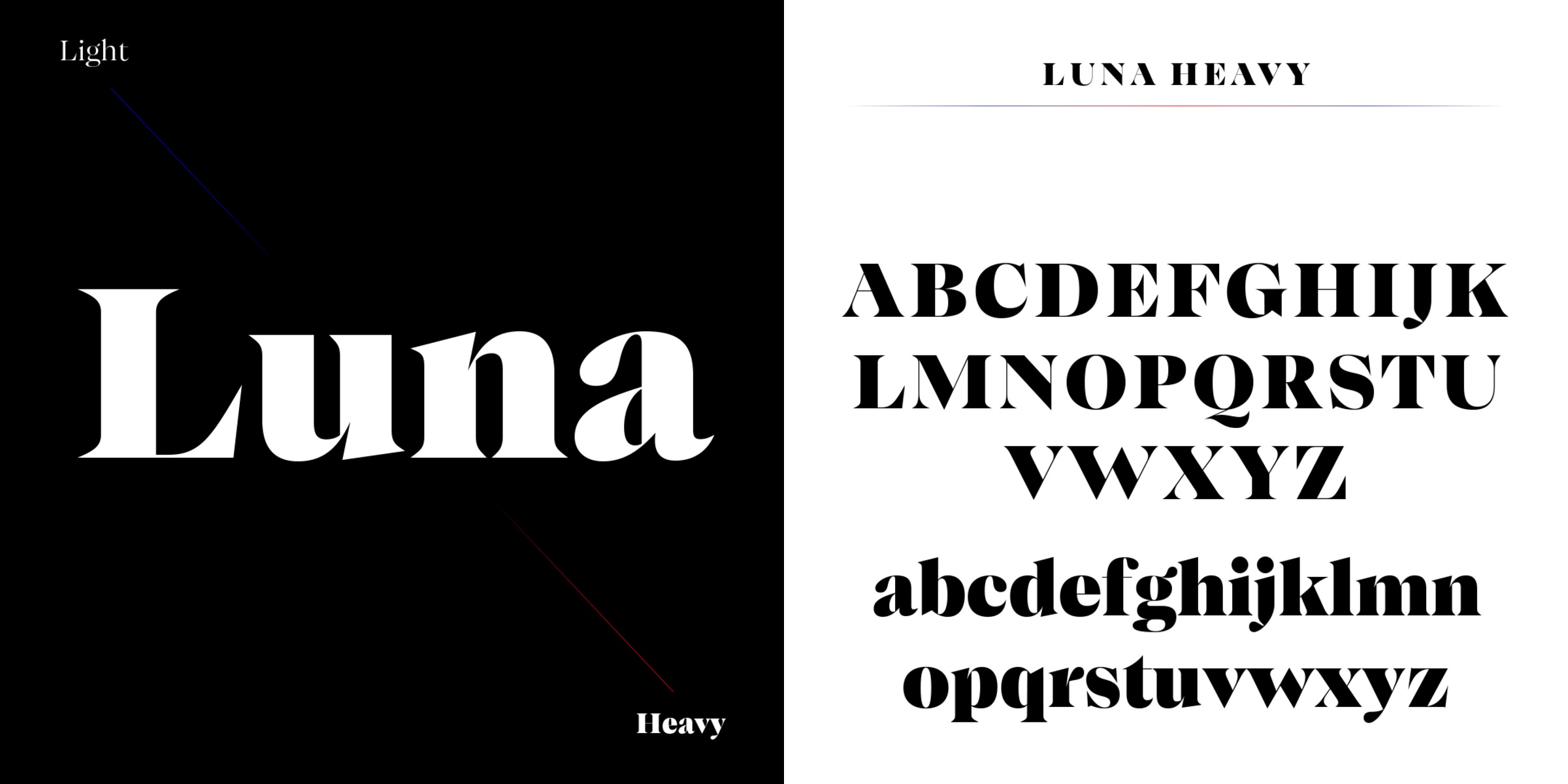
Luna Font
Luna Font is perfect for moonlight-themed restaurants, nighttime photography studios, celestial jewelry brands, lunar meditation apps, dreamy wedding invitations, nocturnal lifestyle magazines, astronomy education materials, moon phase tracking applications, ethereal spa branding, and romantic evening event promotions.
What makes Luna Font so exciting is its remarkable ability to embody the serene beauty and gentle power of moonlight through letterforms that seem to shimmer with silvery radiance and whisper with the quiet wisdom of nighttime contemplation. This luminous typeface captures the essence of lunar tranquility and nocturnal elegance with characters that radiate both peaceful serenity and mystical depth. The font's moonlit design elements perfectly balance celestial inspiration with earthly functionality, creating an indispensable tool that communicates nocturnal beauty, peaceful wisdom, and lunar grace, making it essential for brands and projects celebrating the calming influence of moonlight and the restorative power of nighttime reflection and celestial connection.
Luna Font comes in multiple font families including Regular, Bold, Light, Italic, Bold Italic, Moonlight, Serene, and Dreamy variations. Each family member maintains the core lunar characteristics while offering different luminosity levels and nocturnal approaches to suit various moonlight-inspired and peaceful design requirements.
The nocturnal precision in Luna Font makes it particularly effective for evening entertainment and peaceful wellness industries where conveying gentle lunar beauty and nighttime tranquility is crucial for creating calm, restorative experiences that help audiences find peace in the gentle rhythms of moonlit evenings. Its serene letterforms work beautifully across both intimate nighttime applications and broader peaceful communications, maintaining consistent lunar appeal and tranquil presentation.
Peaceful lifestyle professionals appreciate how Luna Font transforms ordinary communications into gentle invitations to nocturnal tranquility and lunar appreciation. The typeface's moonlit character set includes special celestial symbols, peaceful elements, and serene features that enhance the overall tranquil atmosphere of any moonlight-focused or peaceful project.
For creative professionals serving evening entertainment, peaceful wellness, and romantic lifestyle brands, Luna Font serves as the perfect foundation for establishing memorable visual identities that capture the essential qualities of lunar serenity, nocturnal beauty, and peaceful contemplation that define successful brands celebrating the gentle power of moonlight and the restorative wisdom found in quiet nighttime moments of celestial appreciation and peaceful reflection.